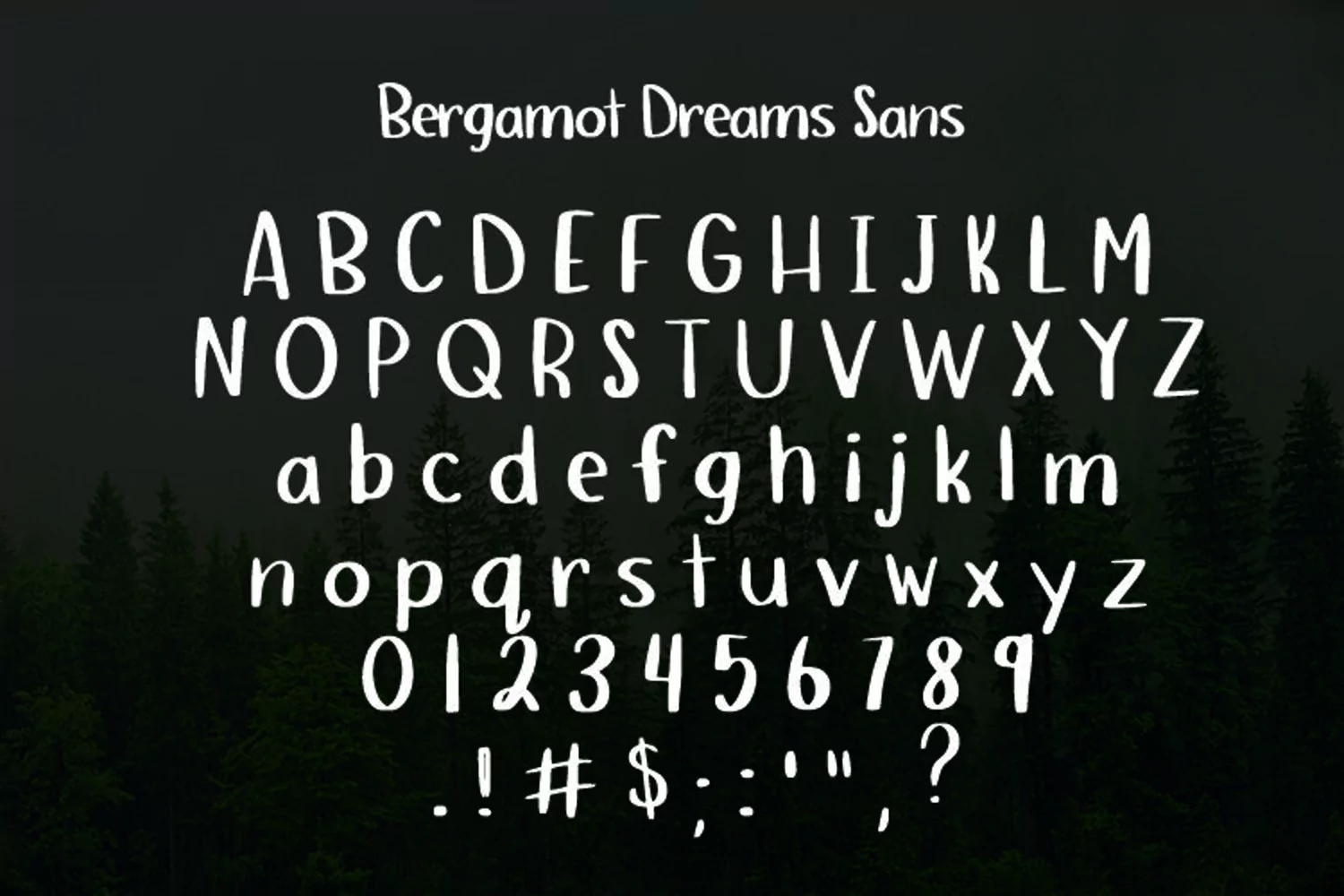
Bergamot Dreams is a handwritten font with a beautiful rustic wilderness look while still being legible.
Bergamot sans pairs perfectly with the script.
The script includes 46 standard ligatures.